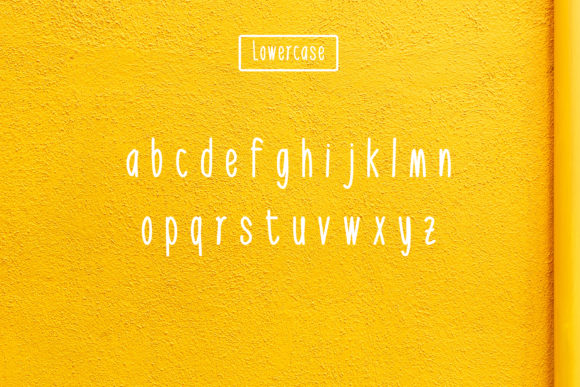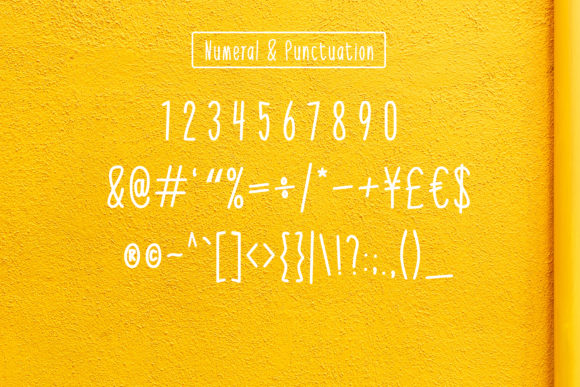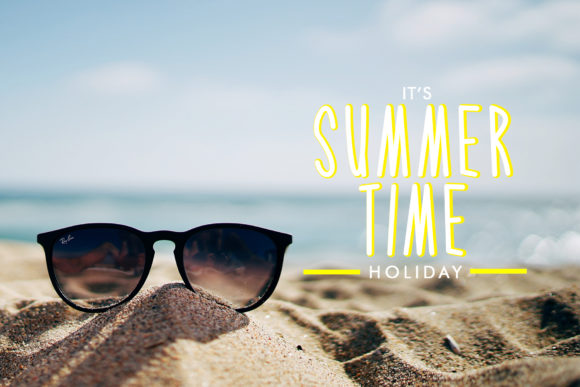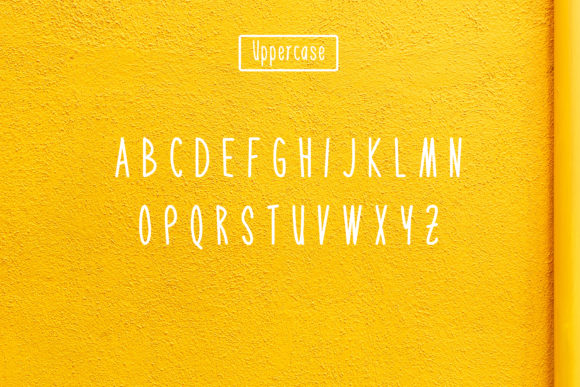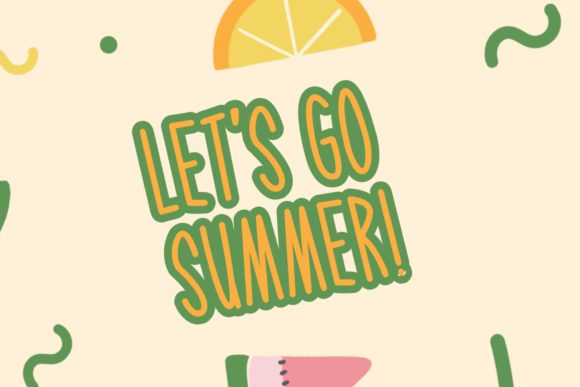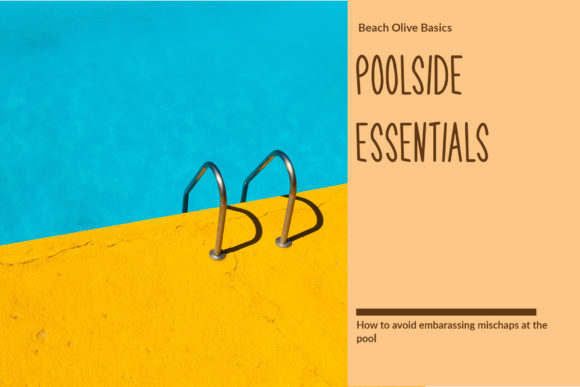
HomeScript FontsFilatelis Font Script Fonts Filatelis Font FacebookXPinterestWhatsApp Filatelis Font Poster 2 Filatelis Font Poster 3 Filatelis Font Poster 4 Filatelis Font Poster 5 Filatelis Font Poster 6 Filatelis Font Poster 7 About Filatelis Font Filatelis is a summery and light handwritten font with a unique feel. Get inspired by its authentic charm! DOWNLOAD ON CREATIVE FABRICAThis font is sold and delivered by Creative Fabrica. Font Canyon may earn a commission if you buy through this link. People also explored Signatra Script Font Dear Heart Font Chiang Mai Font Dry Cowboy Grock Black Font Togle Font Daily Notes Font Brigita Font Quimbro Font 292 0 TagsFilatelis Font Previous articleBhauttine FontNext articleJack Mania Font LEAVE A REPLY Cancel reply Comment: Please enter your comment! Name:* Please enter your name here Email:* You have entered an incorrect email address! Please enter your email address here Website: Save my name, email, and website in this browser for the next time I comment. Personal Use Free Doriath Personal Use Free Read more about this font Mama Personal Use Free Read more about this font Williana Personal Use Free Read more about this font Engine Personal Use Free Read more about this font BLOG Exploring Font Trends Shaping Communication in the Digital Era Fonts, like all design elements, are subject to trends. They play a crucial role in communicating a brand's personality,... Where to Buy American Fonts Online in 2024 Top 10 Handwritten Fonts That Elevate Your Designs How to Install and Use Fonts on Windows, macOS, and Web Projects